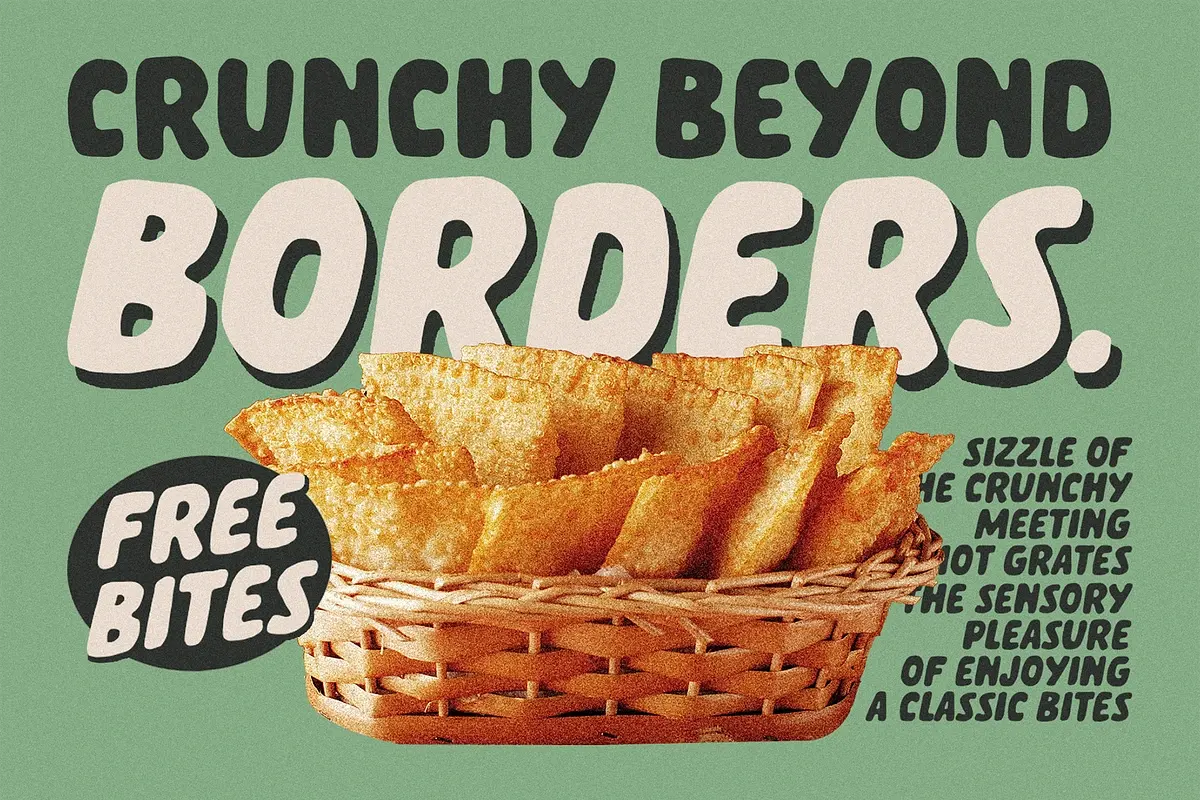
Flamb Burger handwritten font Free Download
Flamb Burger Handwritten Font Free Download
Add a fun and casual touch to your designs with Flamb Burger Handwritten Font Free Download. This playful handwritten font features thick, bold strokes and quirky, organic letterforms, making it perfect for logos, branding, t-shirt designs, invitations, social media posts, and more.
Flamb Burger captures the lively and whimsical feel of hand-lettered typography, bringing personality and charm to your designs. It includes uppercase and lowercase letters, numerals, punctuation, and special characters—ideal for testing creative, bold layouts.